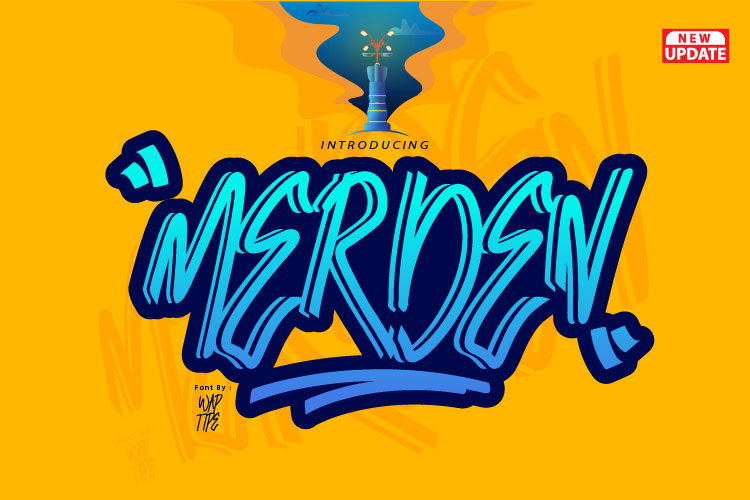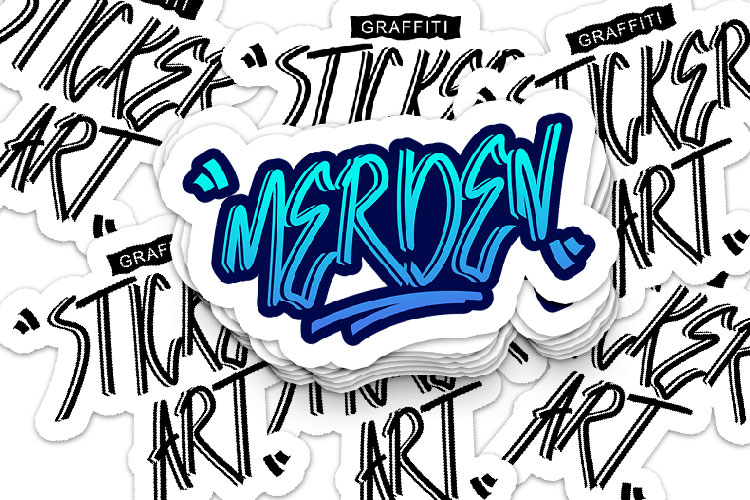
MERDEN Font
MERDEN Display Font
This is new font from WAP Typefoundry, strong feel character set. To create the beautiful combination, just mix the uppercase and lowercase then mix with the alternative glyphs.Merden Graffitis insfire from graffiti style.